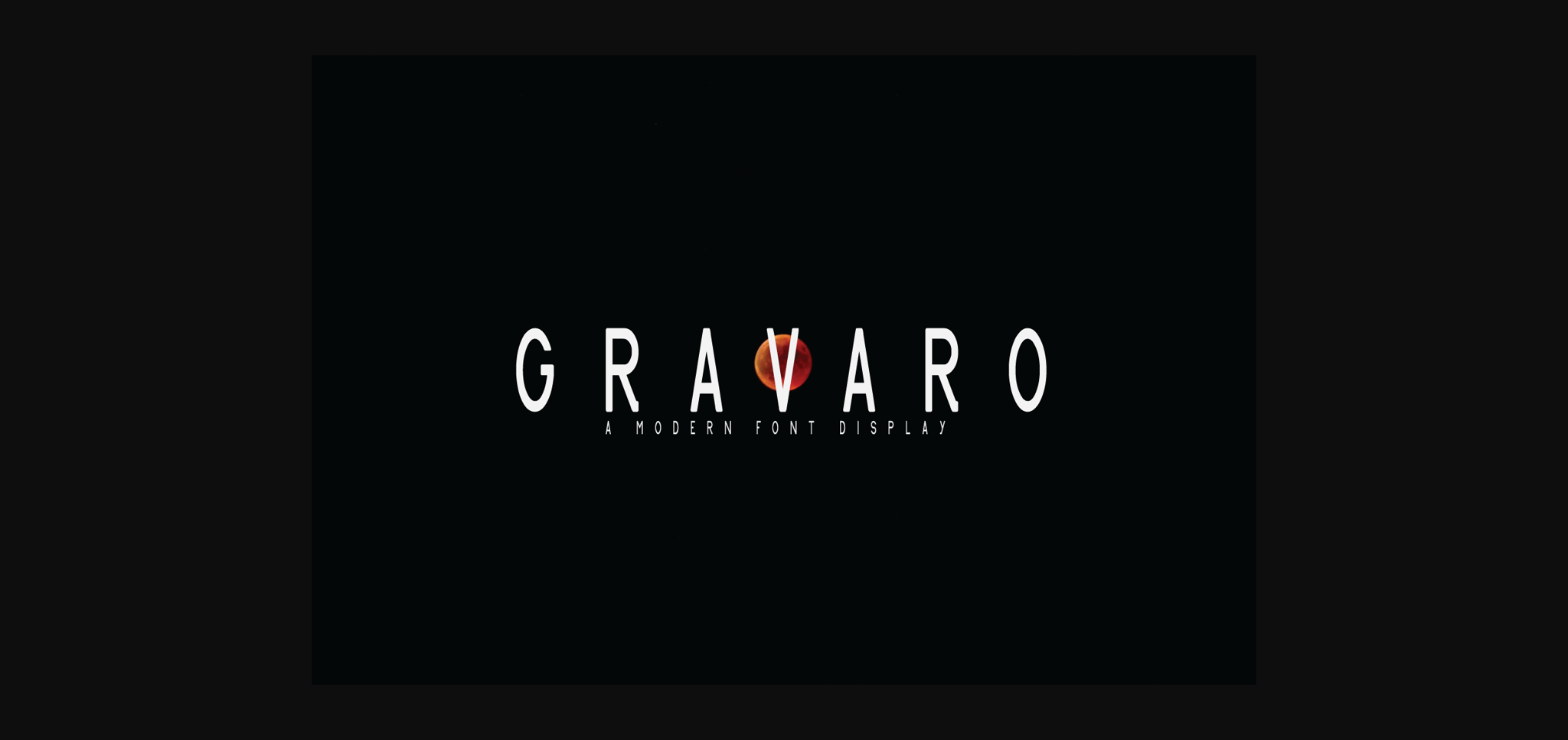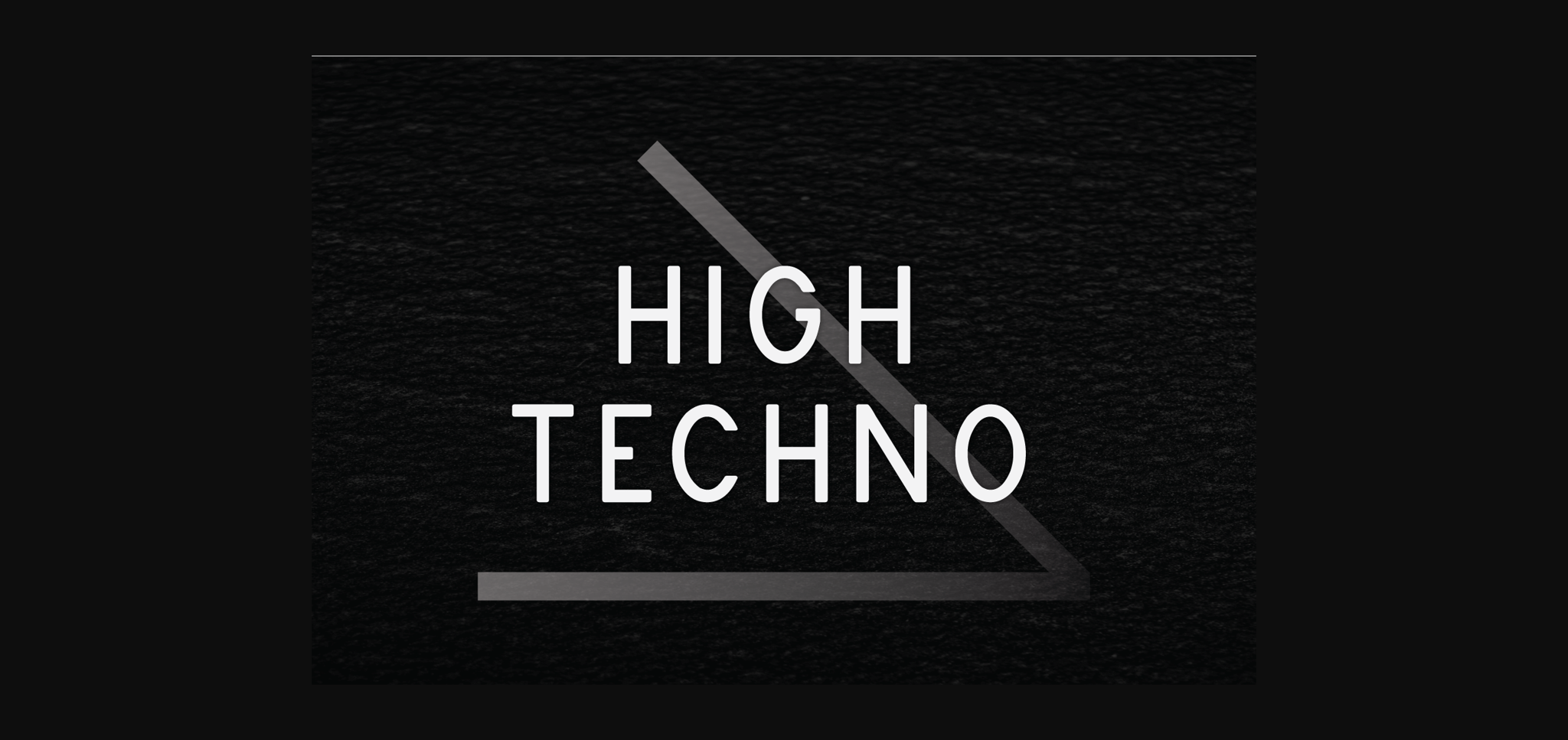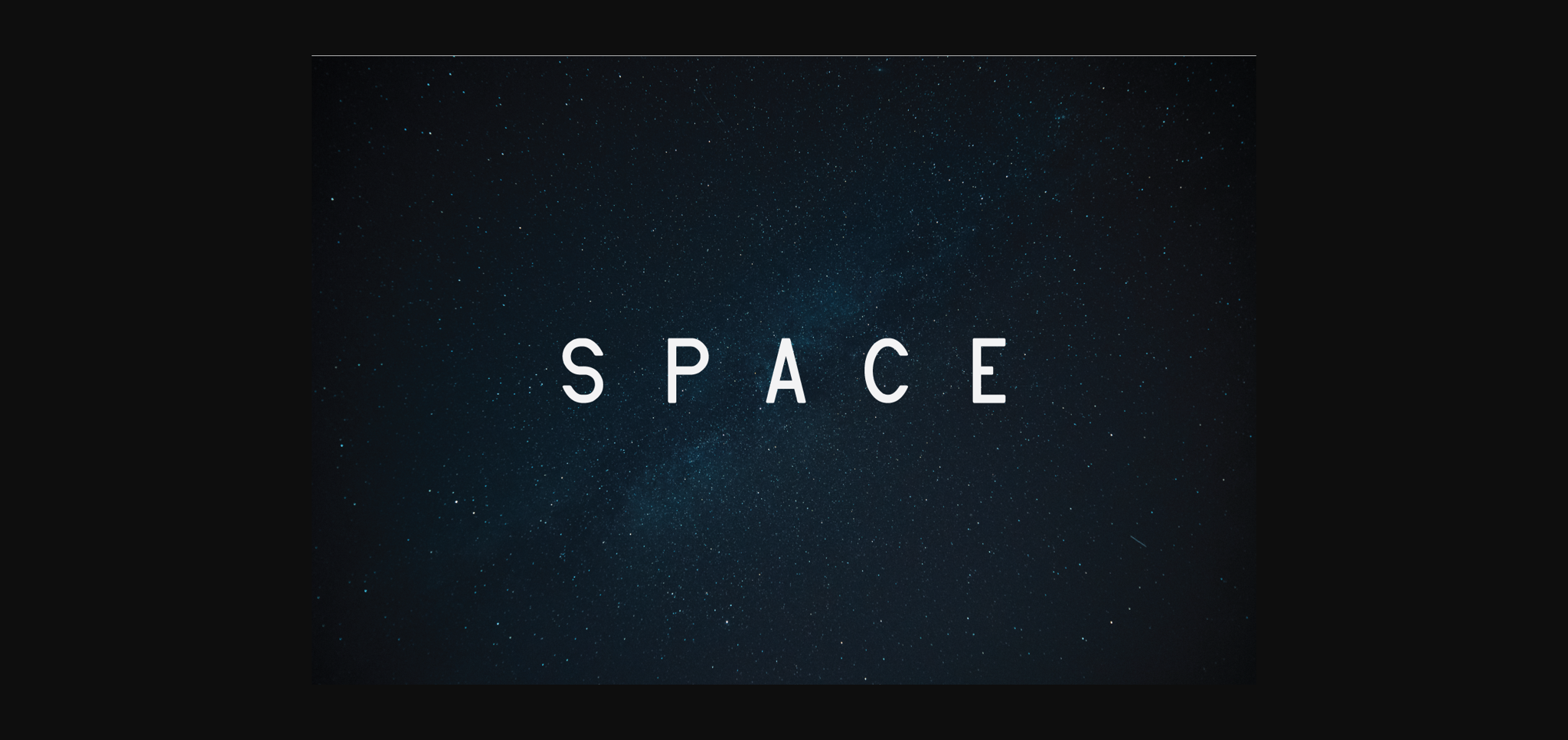
About Gravaro Font
Gravaro is a minimal and neat sans serif font. It can easily be matched to an incredibly large set of projects, so add it to your creative ideas and notice how it makes them stand out!